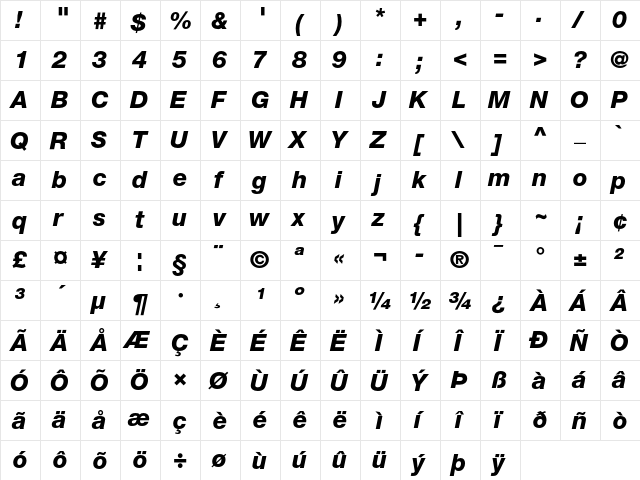
Helvetica Neue 86 Heavy Italic
Design Context for Helvetica Neue Typeface
Helvetica Neue is a composed and adaptable typeface that performs quietly and consistently across a wide range of design contexts. The dynamic lean of this cut emphasises speed and emphasis in any layout.
Pro Tip: Use Helvetica Neue for emphasis, pull quotes, and subheadings where its slanted energy can add rhythm to the layout.